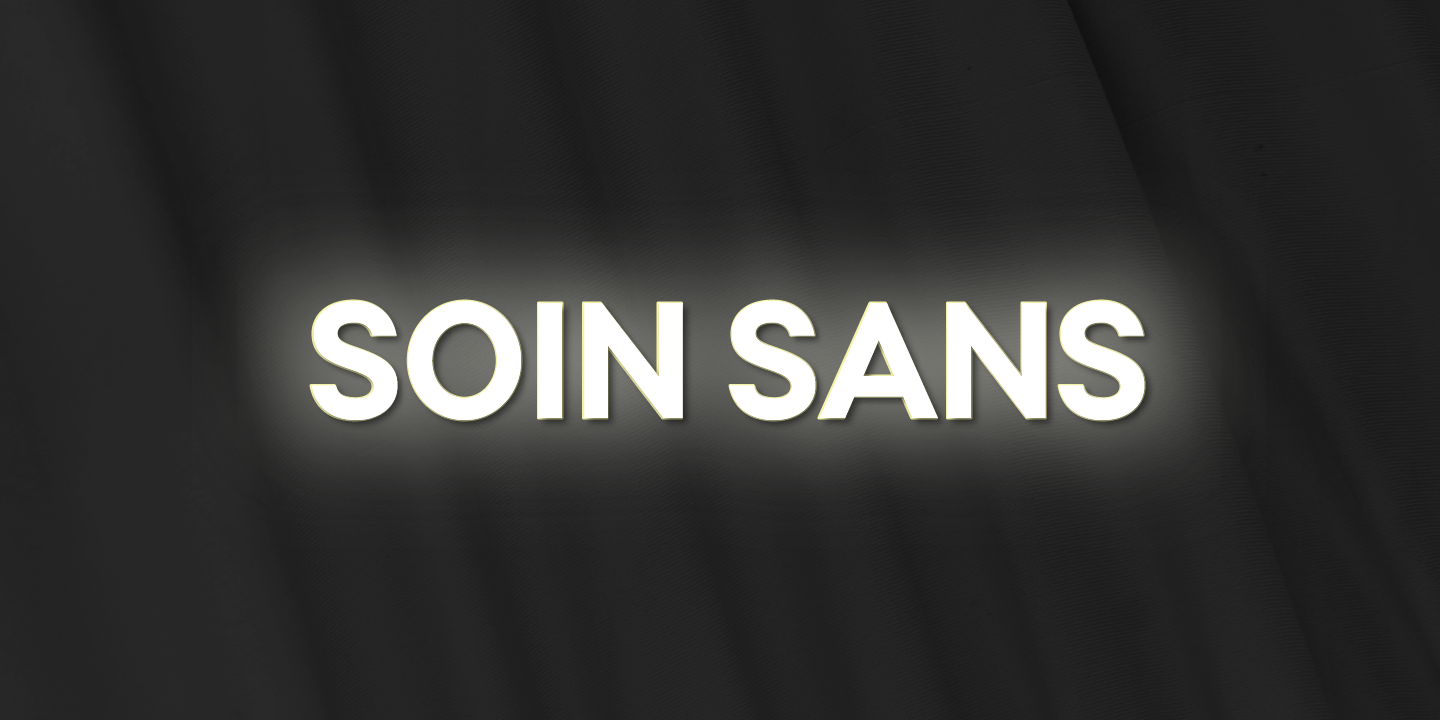
Soin Sans Font is perfect for various applications including healthcare branding, medical facility signage, wellness center logos, pharmaceutical packaging, spa and therapy services, clean beauty products, minimalist web interfaces, professional medical documents, health app designs, and therapeutic marketing campaigns.
What makes Soin Sans Font so exciting is its therapeutic ability to convey healing and care through clean, compassionate typography that immediately instills trust and comfort. This nurturing typeface features gentle, sans-serif letterforms with soft proportions and calming details that evoke the healing touch of healthcare professionals and the serene environment of wellness spaces. The font's caring character and therapeutic aesthetic make it ideal for brands that want to convey healing, professionalism, and compassionate care to audiences who seek health, wellness, and medical expertise.
Soin Sans Font family includes multiple weights and styles: Thin, Light, Regular, Medium, Bold, Clean, Condensed, Extended, and therapeutically crafted Italic variants. Each family member maintains the font's signature healing essence while offering different levels of visual impact and stylistic flexibility for diverse healthcare and wellness applications.
The Soin Sans Font Free Download provides designers with access to a healthcare-inspired typeface that excels in medical and wellness markets. Whether you're creating trusted medical brand identities, designing therapeutic marketing materials, or developing healing-focused digital experiences, this font delivers the compassionate aesthetic needed to connect with health-conscious patients and wellness seekers. Its clean styling and caring essence make it particularly effective for hospitals, wellness centers, and healthcare technology companies.
Typography specialists will appreciate the careful balance between professionalism and compassion in Soin Sans Font's construction. The font features precisely crafted letterforms with therapeutic proportions, optimized spacing for medical readability, and carefully calibrated details that ensure excellent legibility while maintaining its healing character. From patient information materials to medical facility signage, this typeface maintains its care and professional appeal across all healthcare contexts.
For healthcare web designers, Soin Sans Font provides outstanding performance in medical digital environments and wellness platforms. The font's technical specifications are optimized for accessibility and patient-friendly interfaces while preserving the clean, caring edges that define its therapeutic character. Its versatility makes it suitable for both static medical content and interactive health experiences.
Creative professionals working in healthcare, wellness, medical technology, and therapeutic services will find Soin Sans Font to be an essential tool for projects requiring compassionate visual communication. The font's ability to convey trust, healing, and professional care makes it invaluable for brands targeting health-conscious and wellness-seeking demographics.
Design agencies specializing in healthcare and wellness brands appreciate Soin Sans Font's versatility in creating memorable caring identities.